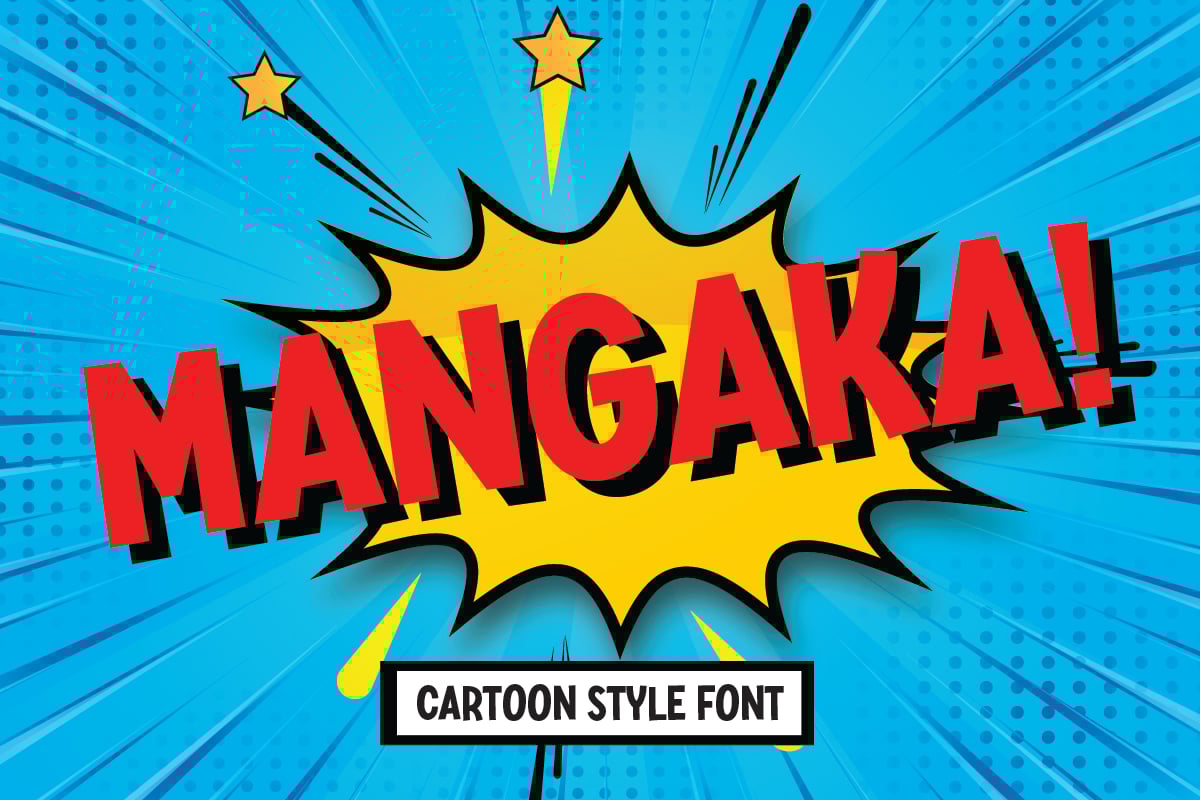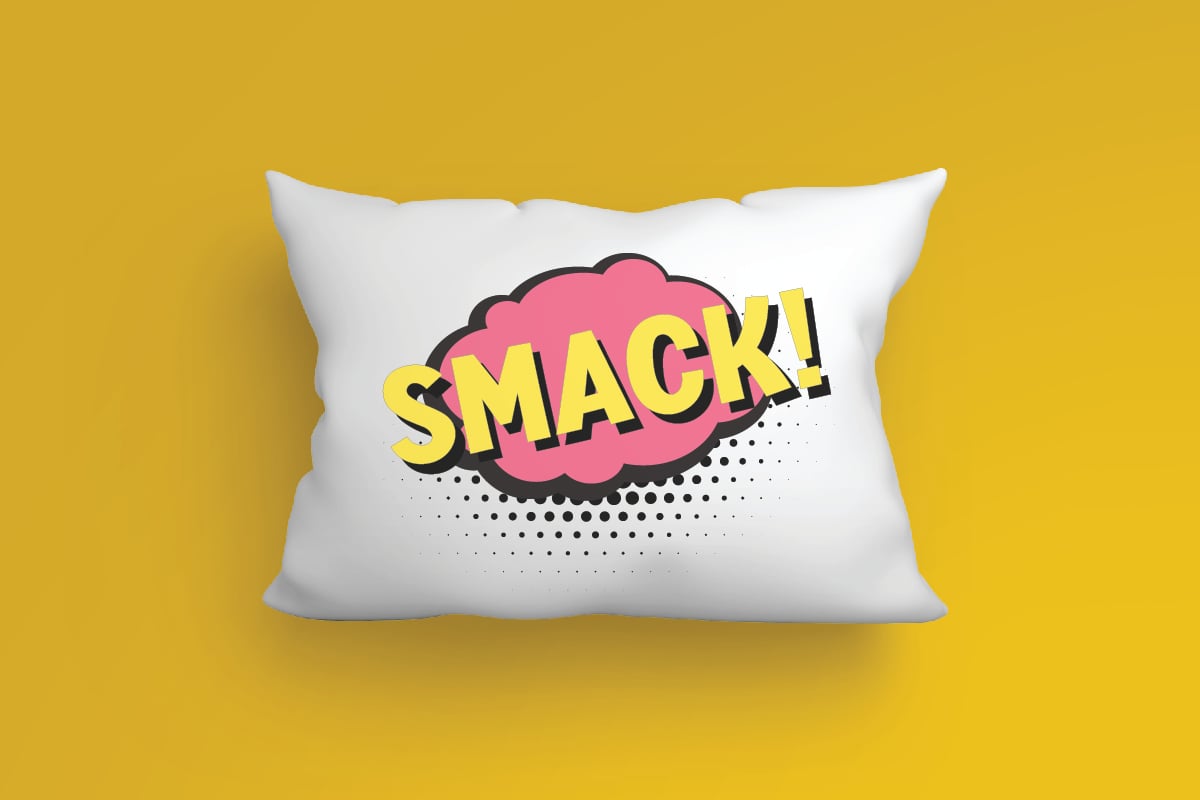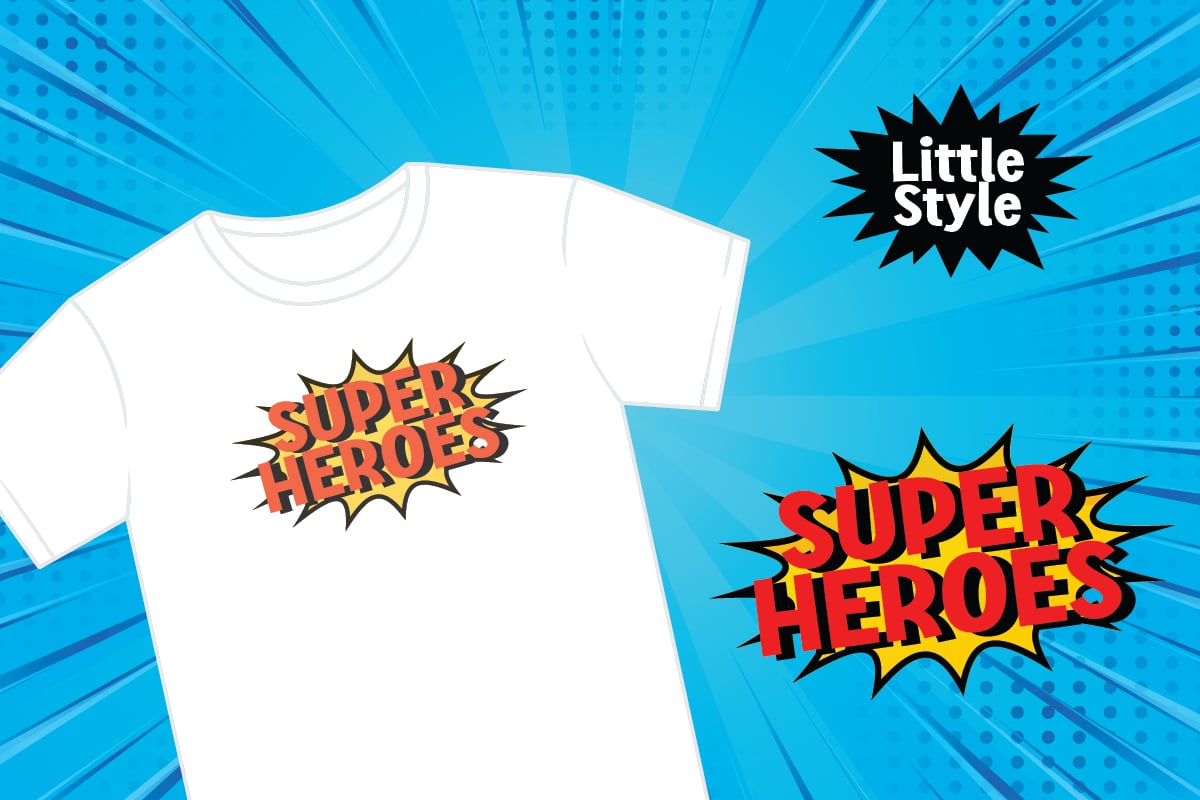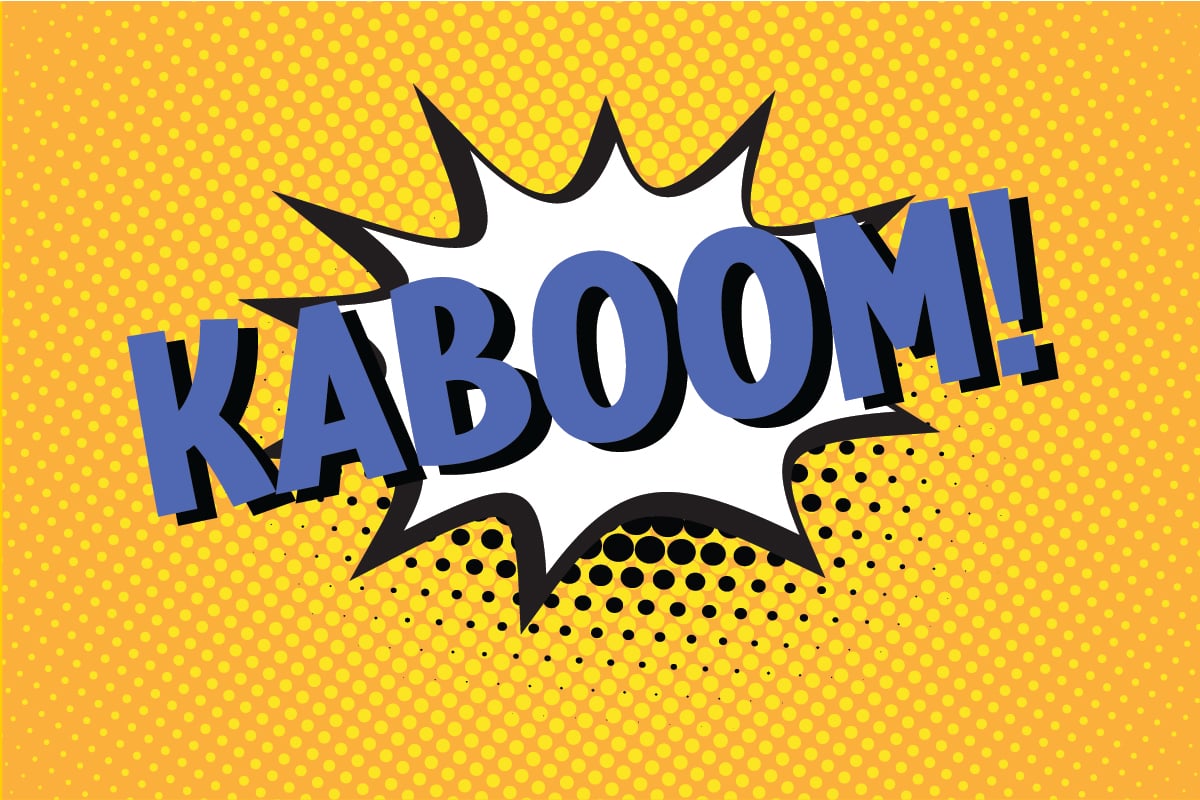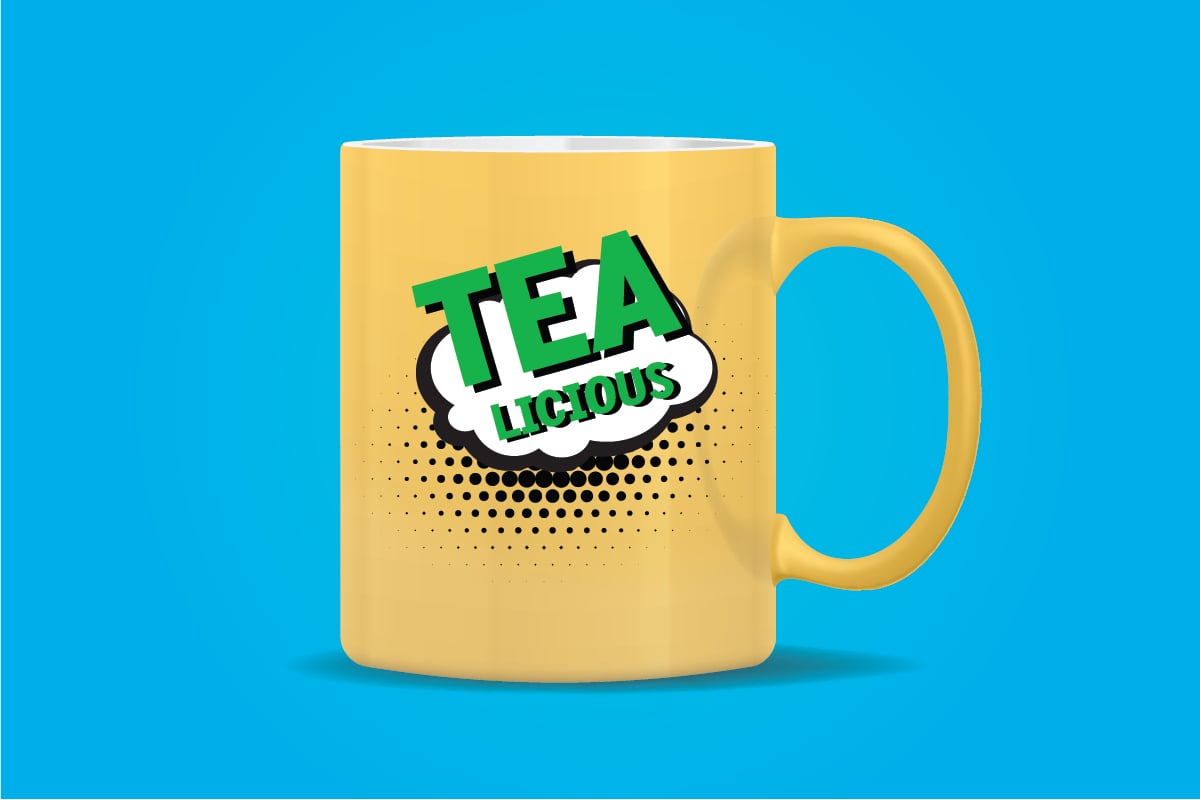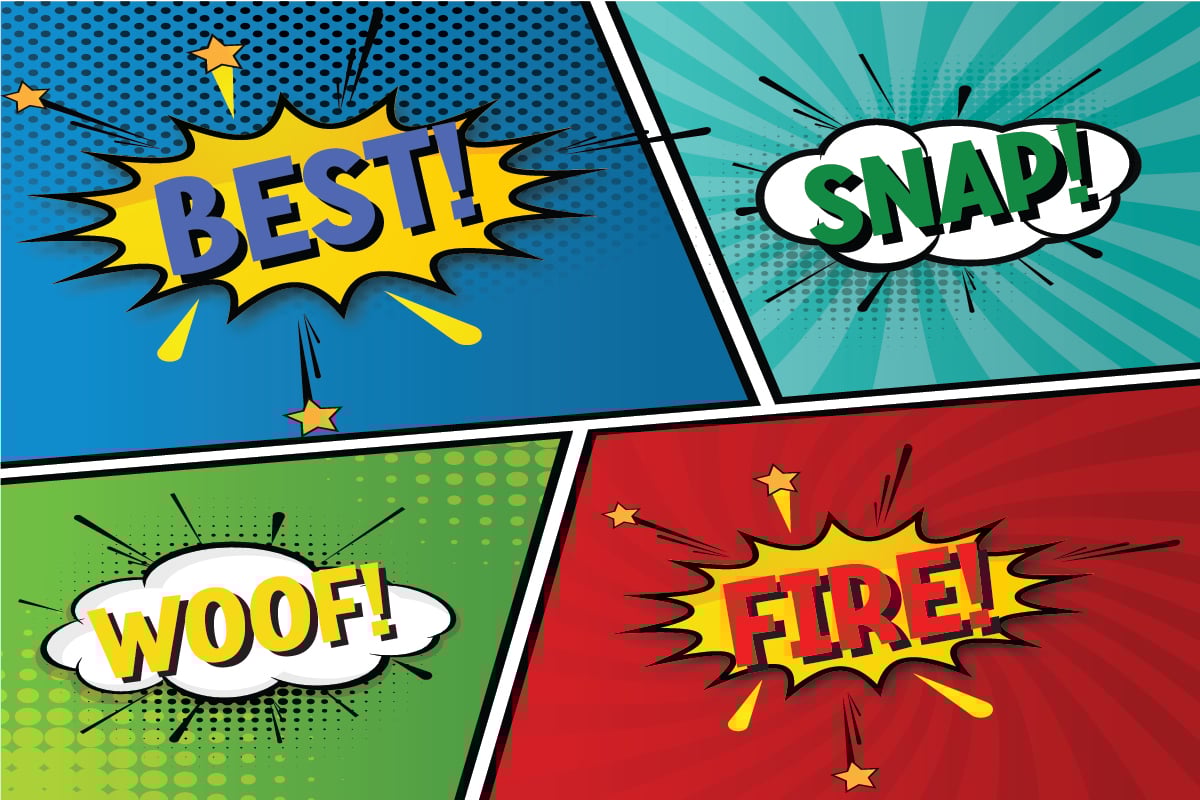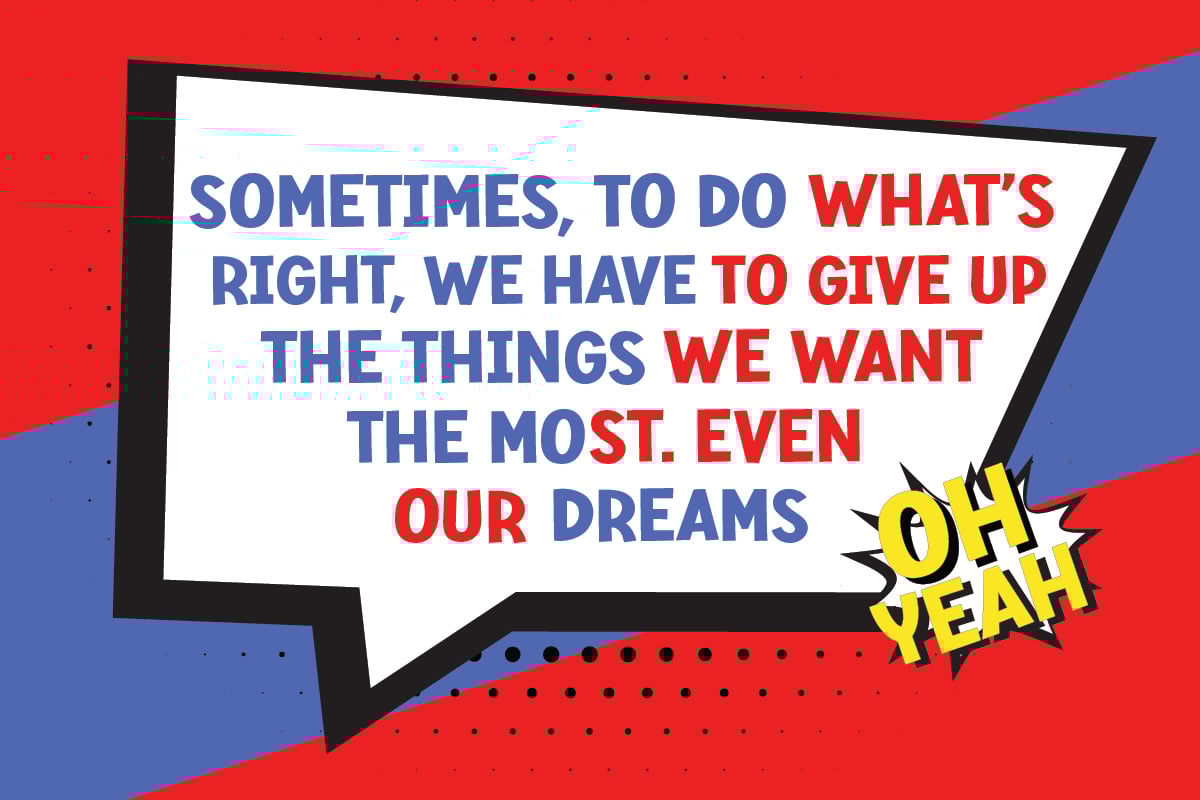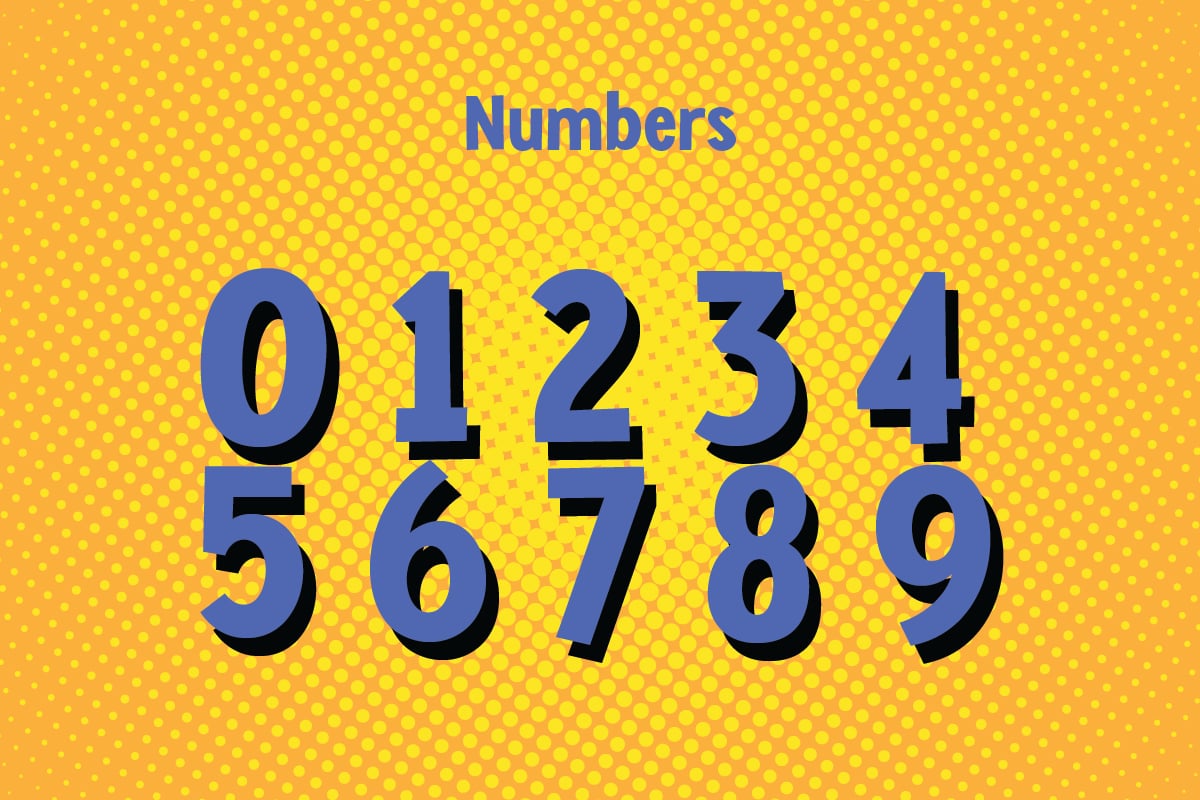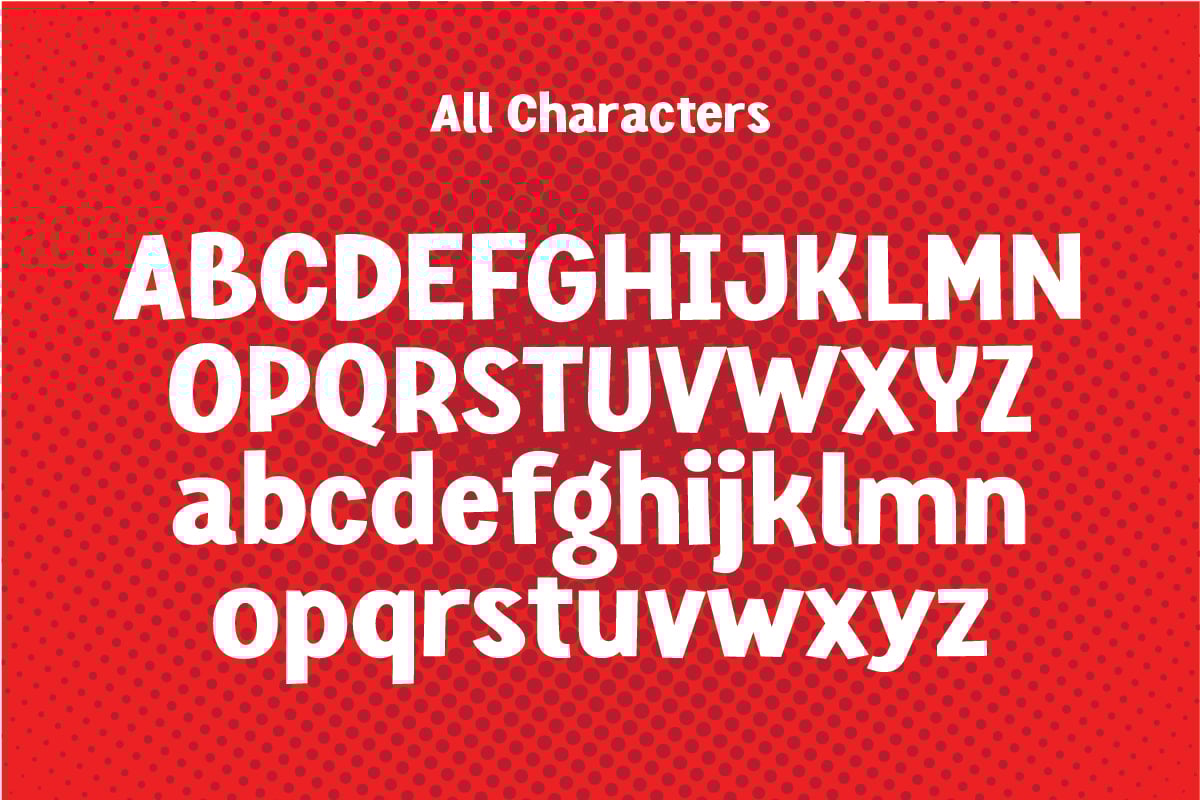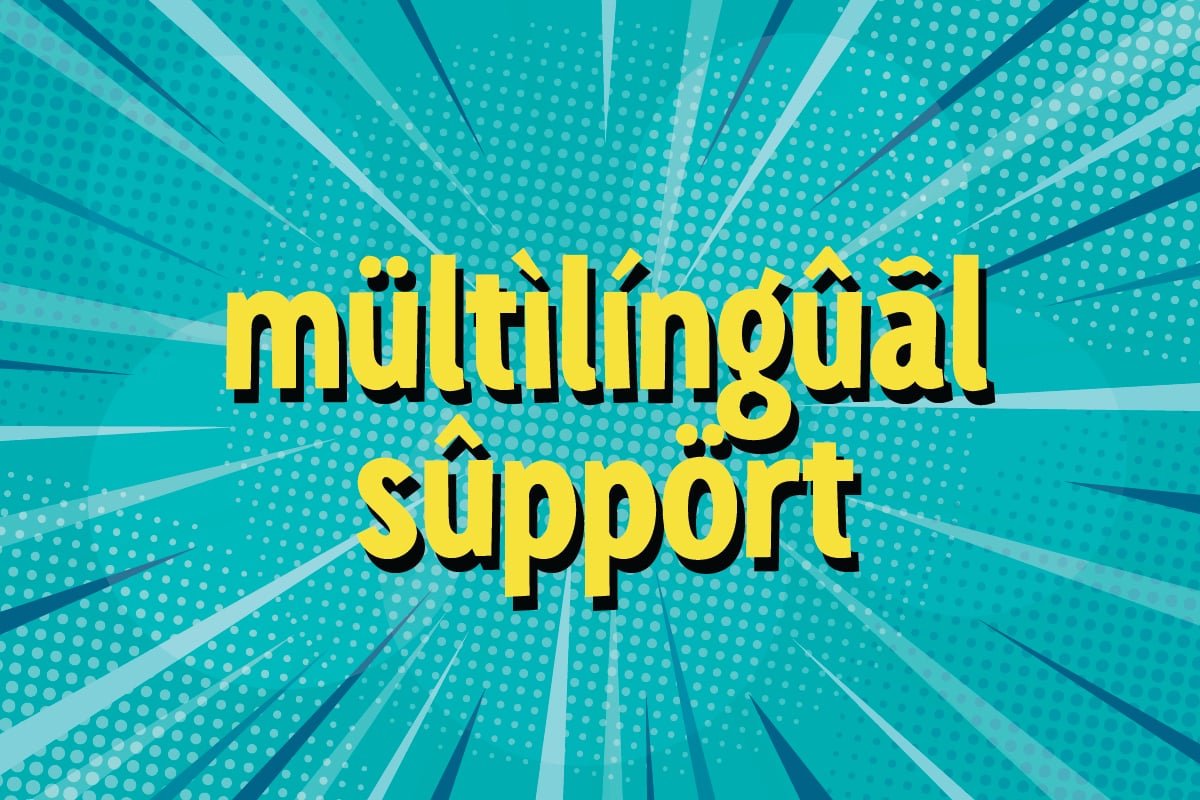
Mangaka – Cartoon Kids Boom Manga Headline Font
Mangaka is a a Cartoon Kids Boom Manga Headline Font that’s perfect for Banner or Merchandise. This font specially crafted for your design projects such as standout poster, unique flyer, t-shirt designs, product packaging, merchandise, pillow print and so many more with easy to use but standing out results are so amazing.
Enjoy to Design any your needs with standing out, unique, and cartoon feel.